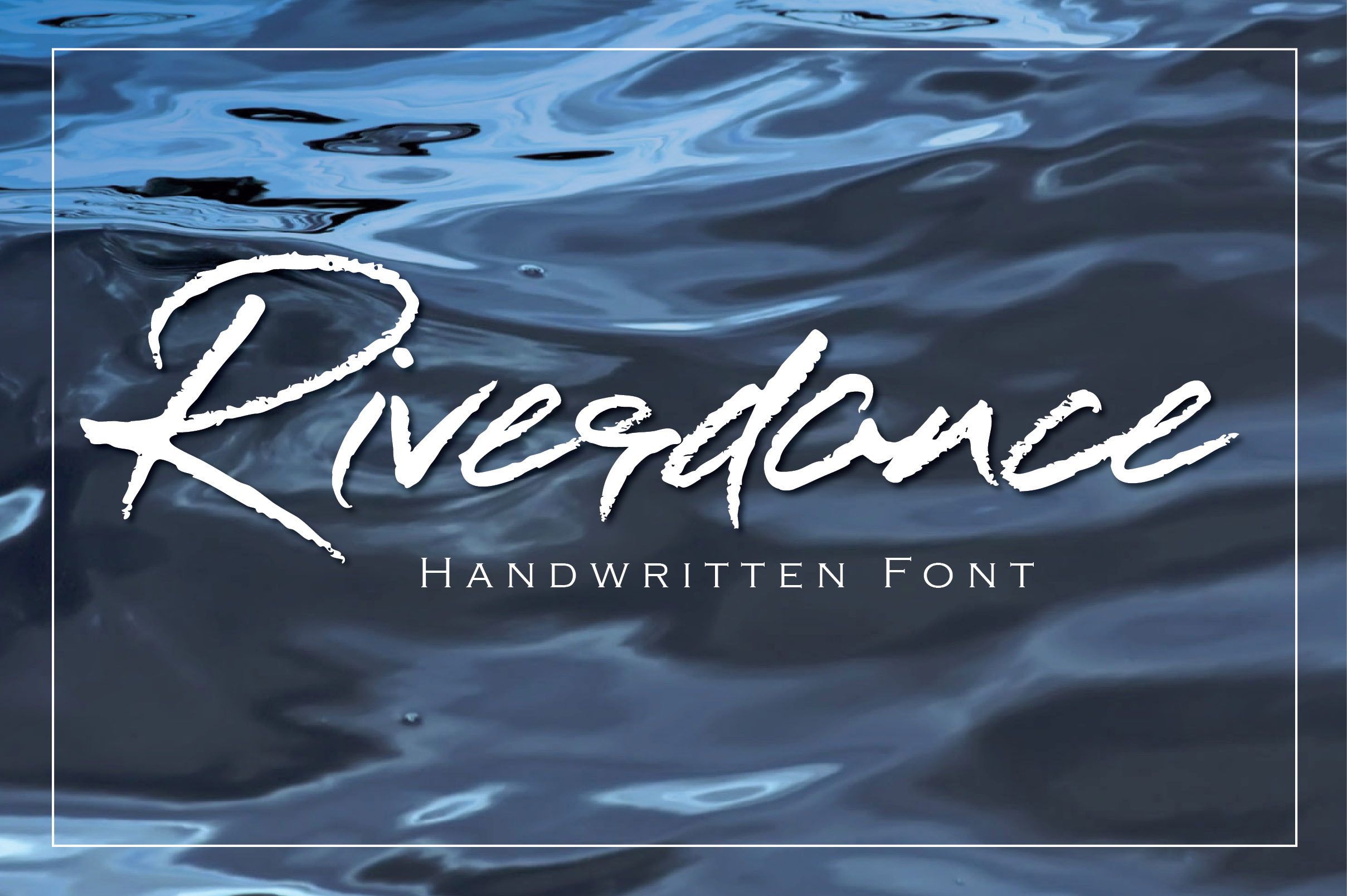
Riverdance Handwritten Font
Riverdance is a hand lettered font designed for creating a personal, casual, stylish type of lettering that has a natural signature style to it.
This is a super versatile font that is great for logos and branding, printed quotes, invitations, image overlays, greeting cards, product packaging, text headers, & whatever else you can think up!
Riverdance: A handwritten script font containing upper & lowercase characters, numerals and a large range of punctuation. Several alts, swishes and ligatures are available in glyphs panels.